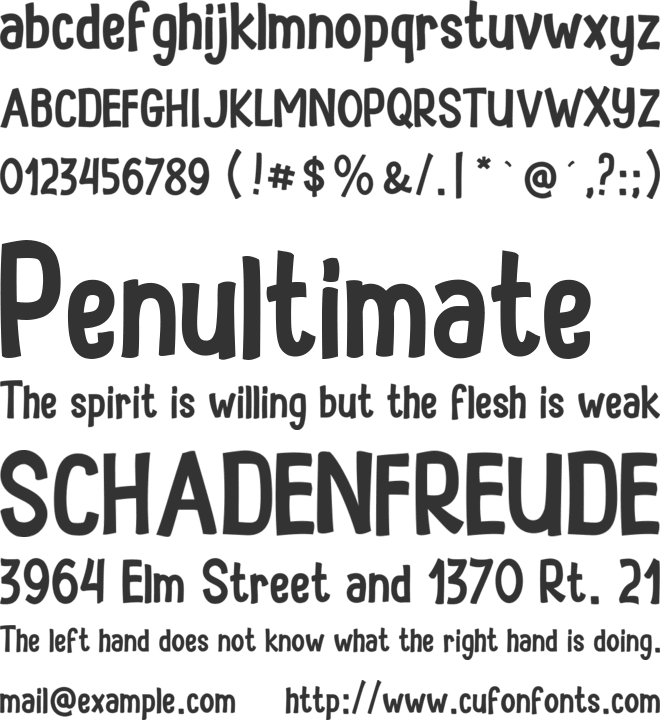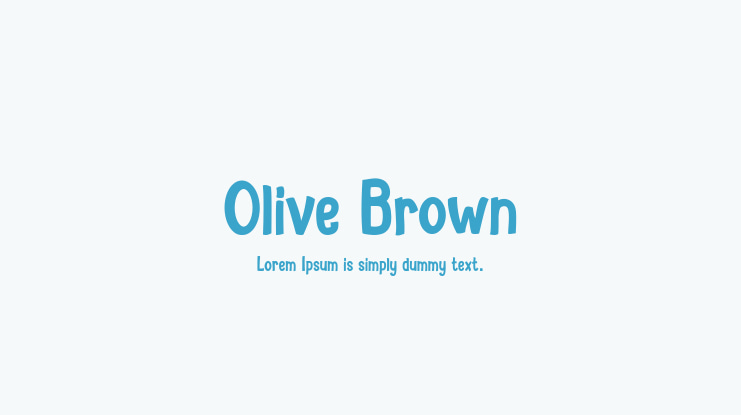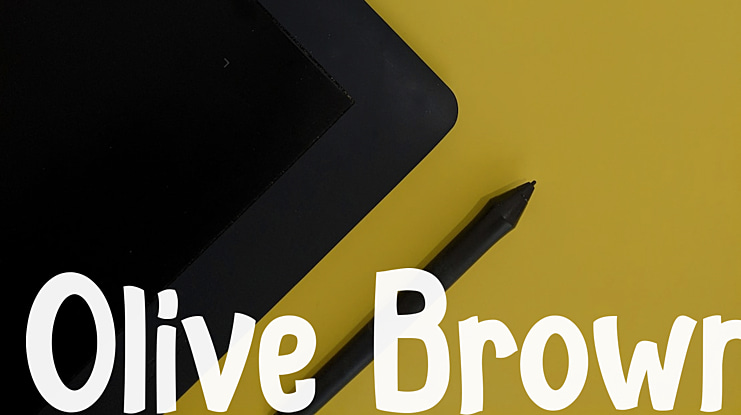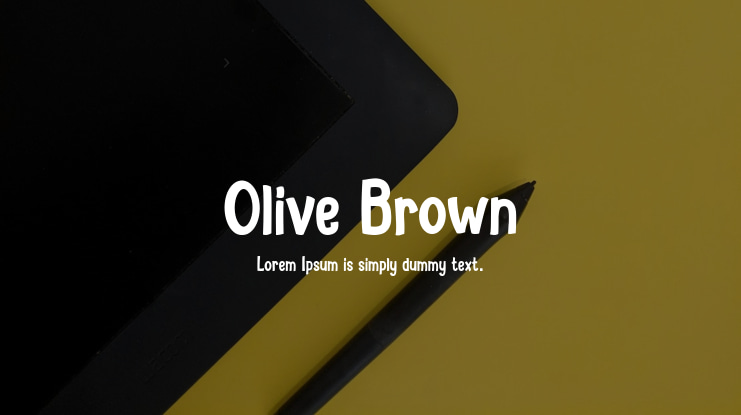
Olive Brown Font
Olive Brown is a delightful and affable typeface that adds a touch of eccentricity to any design. Its distinctive and organic style makes it a perfect choice for a wide range of creative projects. Your imagination is the only constraint!